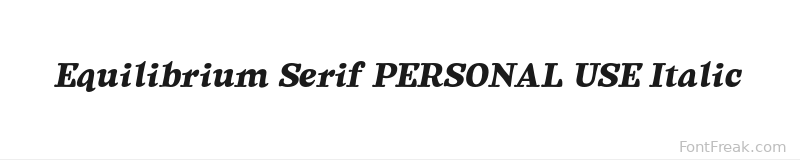
Equilibrium Serif PERSONAL USE Italic
Equilibrium Serif PERSONAL USE Italic, designed by Mans Greback, is a striking serif typeface that embodies elegance and sophistication. Characterized by its graceful italic style, this font features a moderate stroke weight, providing a balanced contrast that enhances readability. The flowing curves and sharp serifs create a visually appealing aesthetic, making it an excellent choice for various design projects. The spacing between characters is well-considered, ensuring that each letter stands out while maintaining a harmonious overall appearance.
This versatile font is particularly well-suited for a range of applications, including wedding invitations, where its refined look adds a touch of class. It also shines in editorial layouts, such as magazine covers and articles, where the italic style can emphasize key points or quotes. Restaurant menus benefit from its sophisticated charm, drawing attention to gourmet dishes while maintaining a professional feel. Additionally, Equilibrium Serif PERSONAL USE Italic is an excellent option for branding materials, helping small business owners create a memorable identity.
Targeting graphic designers, content creators, and small business owners, this font caters to those who seek a unique yet approachable typographic solution. Its elegant design makes it an attractive choice for professionals looking to communicate their message with style.
What sets the Equilibrium Serif PERSONAL USE Italic font apart is its ability to blend traditional serif characteristics with a modern flair. The careful attention to detail in its design allows it to stand out in a crowded marketplace. Whether you're crafting a personal project or seeking a distinctive typeface for your business, the Equilibrium Serif PERSONAL USE Italic font free download offers a compelling option that will elevate your work.